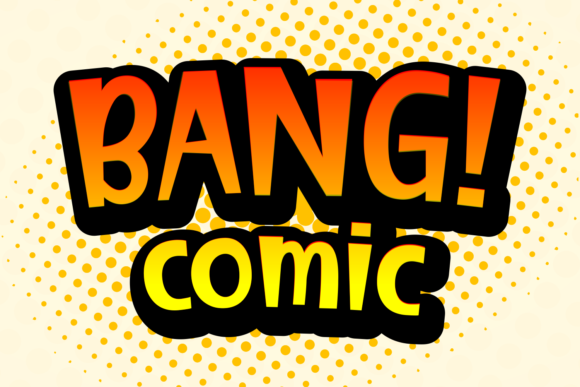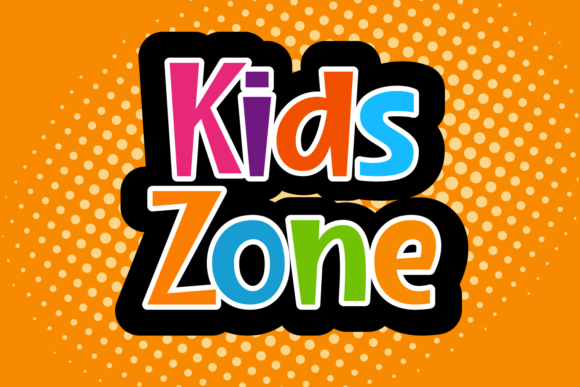
Adding a Dash of Whimsy to Your Designs with Funny Cartoon Font
Are you looking for a font that can add a touch of joy and playfulness to your designs? Look no further than the Funny Cartoon Font. This fun and thick lettered display font is perfect for a variety of projects, from cartoon-related designs and children’s games to quotes, titles, brand names, book covers, posters, and more.
What Makes Funny Cartoon Font So Special?
Funny Cartoon Font is a unique and eye-catching font that is sure to grab attention. Its thick, bold letters are perfect for creating fun and playful designs that are sure to delight. Whether you’re designing for kids or adults, this font is sure to bring a smile to their faces.
One of the best things about Funny Cartoon Font is its versatility. It can be used for a wide range of projects, from digital designs to print materials. Its bold and playful style makes it perfect for:
- Cartoon-related designs: Create fun and playful cartoons with this font.
- Children’s games: Add a touch of whimsy to your children’s games with this font.
- Quotes and titles: Use Funny Cartoon Font to add emphasis to your quotes and titles.
- Brand names: Create a fun and playful brand identity with this font.
- Book covers: Add a touch of whimsy to your book covers with this font.
- Posters: Create eye-catching posters with this font.
Why Choose Funny Cartoon Font?
There are many reasons why Funny Cartoon Font is a great choice for your designs. Here are just a few:
- Unique and eye-catching: This font is sure to grab attention with its bold and playful style.
- Versatile: Funny Cartoon Font can be used for a wide range of projects, from digital designs to print materials.
- Easy to read: Despite its playful style, Funny Cartoon Font is easy to read, making it perfect for designs that require a clear message.
- Fun and playful: This font is perfect for designs that require a touch of whimsy and playfulness.
How to Use Funny Cartoon Font in Your Designs
Using Funny Cartoon Font in your designs is easy. Here are a few tips to get you started:
- Pair it with other fonts: Funny Cartoon Font pairs well with other fonts, such as sans-serif fonts. Try pairing it with a clean and simple font to create a fun and playful contrast.
- Use it for headings: Funny Cartoon Font is perfect for headings and titles. Use it to add emphasis to your text and create a clear hierarchy of information.
- Experiment with colors: Funny Cartoon Font looks great in a variety of colors. Try experimenting with different colors to find the perfect one for your design.
Funny Cartoon Font is a fun and versatile font that is perfect for adding a touch of whimsy to your designs. Its bold and playful style makes it perfect for a wide range of projects, from cartoon-related designs to posters and book covers. With its ease of use and versatility, Funny Cartoon Font is a great choice for designers and crafters looking to add a dash of fun and playfulness to their designs.
So why not give Funny Cartoon Font a try? With its unique and eye-catching style, it’s sure to bring a smile to your audience’s faces.